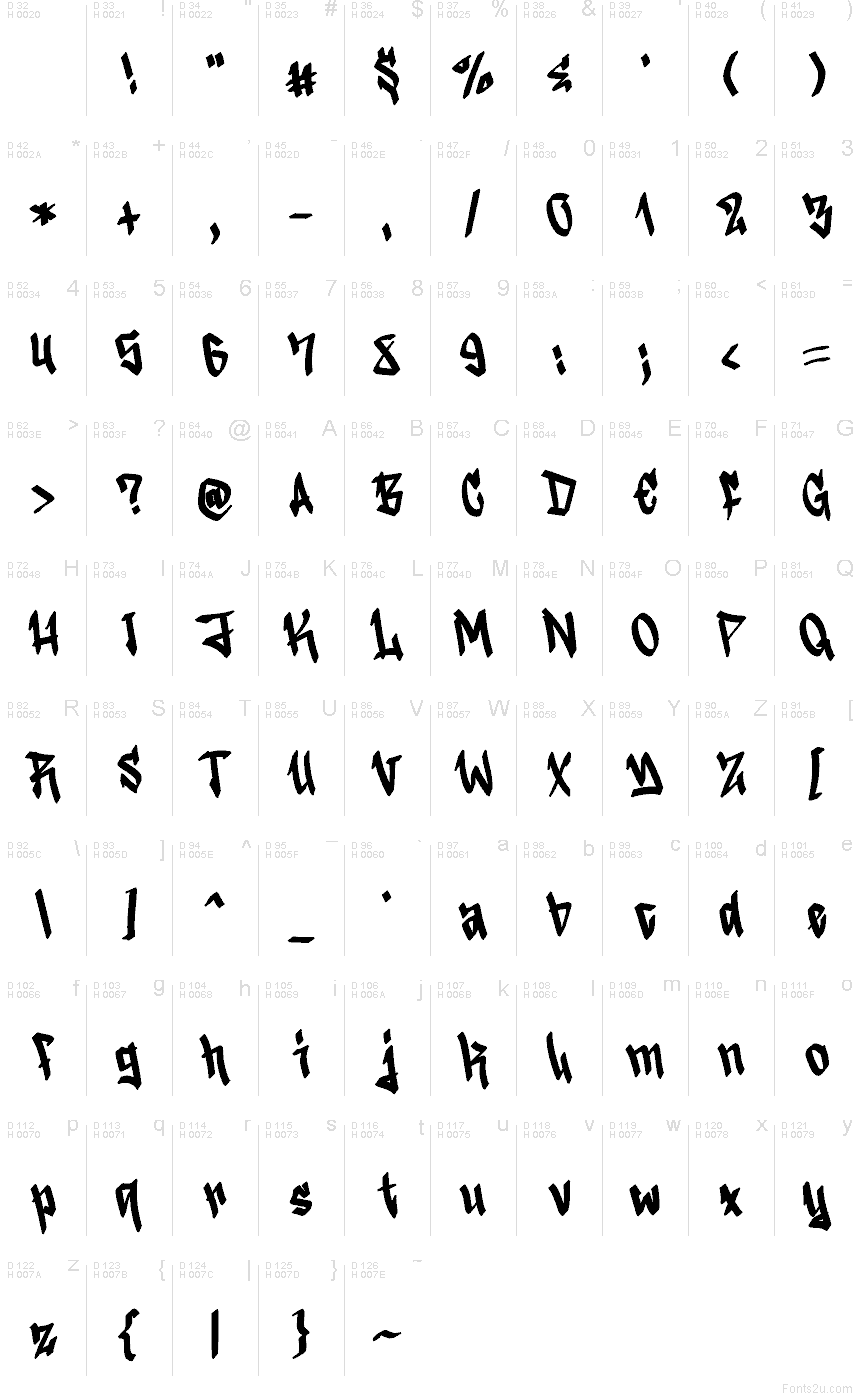
Vandal Rush
Vandal Rush font by Letterafa is a free graffiti font with sharp, angular strokes and a hand-cut tag style. Its letters press forward with uneven edges, pointed joins, and a jagged rhythm that feels pulled quickly across a wall.
Vandal Rush works well for streetwear logos, poster titles, music flyers, skate graphics, and album art because its rough outlines carry that sprayed-on, urban energy without needing extra decoration. It also fits sticker designs and bold social media graphics when you want lettering that looks improvised and gritty rather than polished.